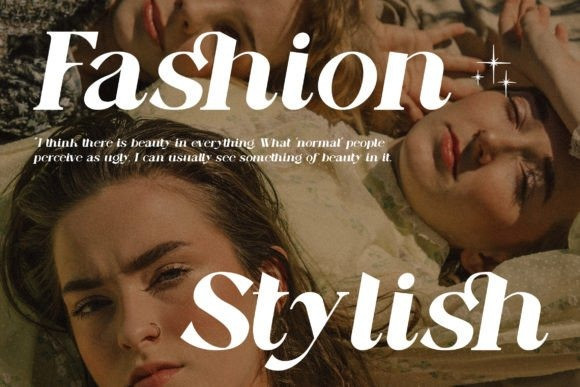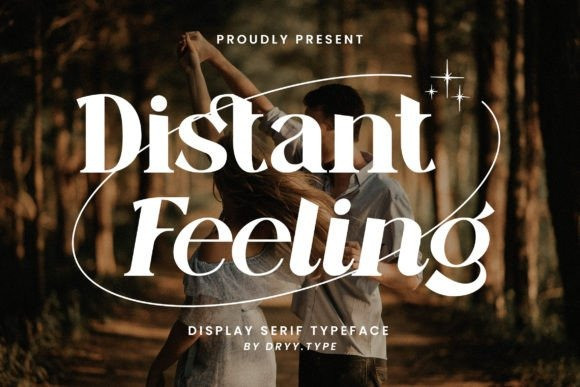
Distant Feeling Font
Say hello to the captivating and luxurious “Distance Feeling” font! With its sleek and refined lines, this serif font exudes a sense of elegance and sophistication, perfect for adding a touch of luxury to any project. Its modern yet timeless style and alluring look make it the ideal choice for branding, editorial design, and print materials that aim to create a high-end and exclusive atmosphere.